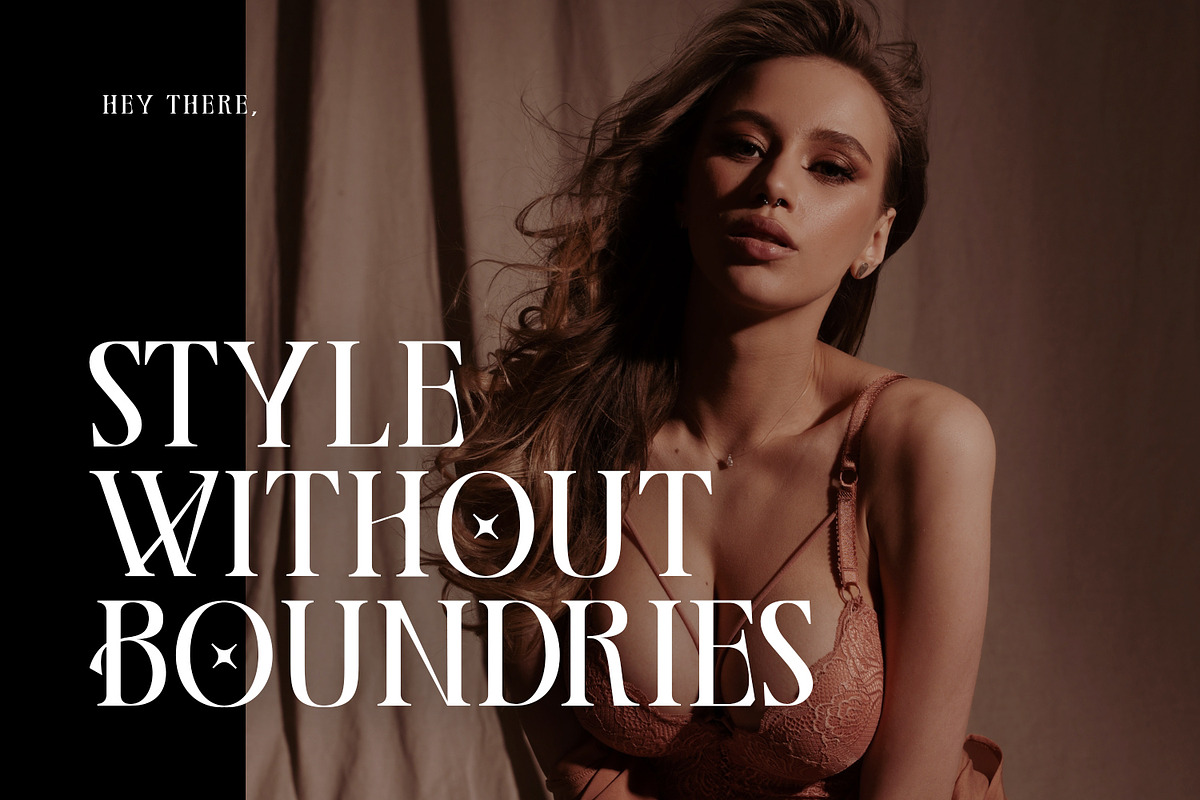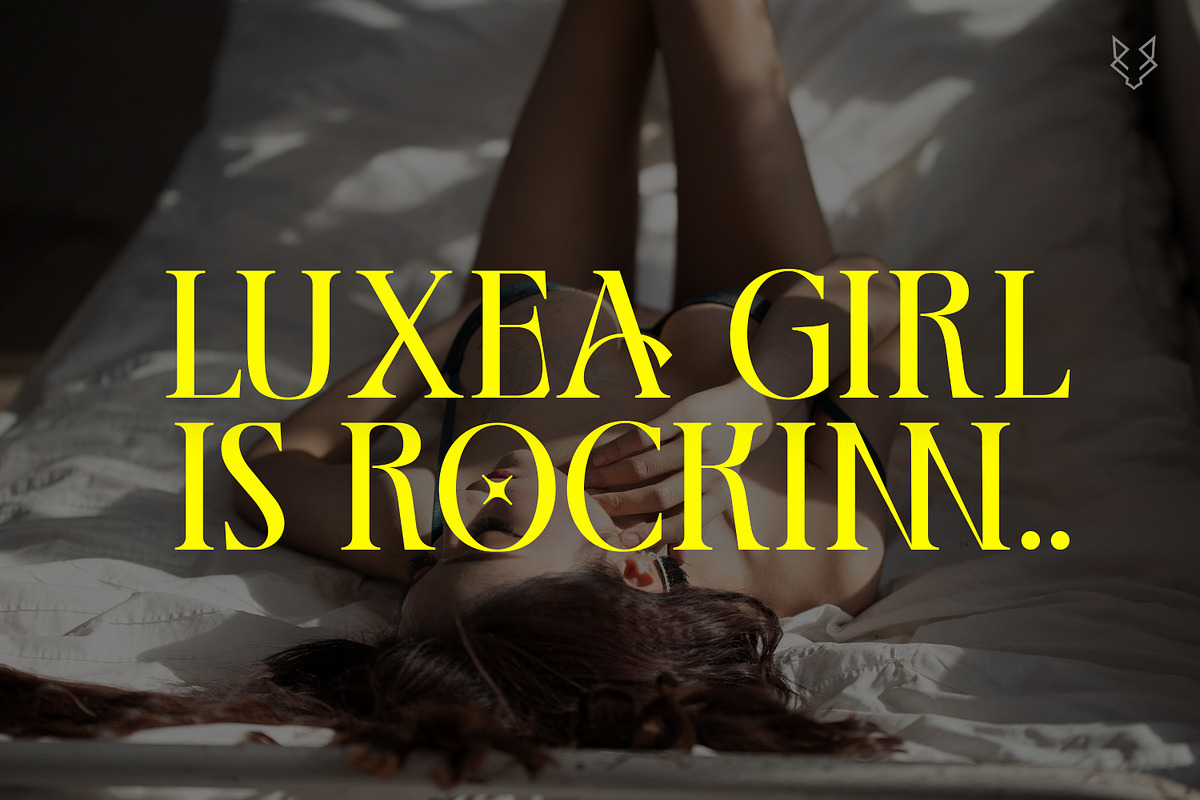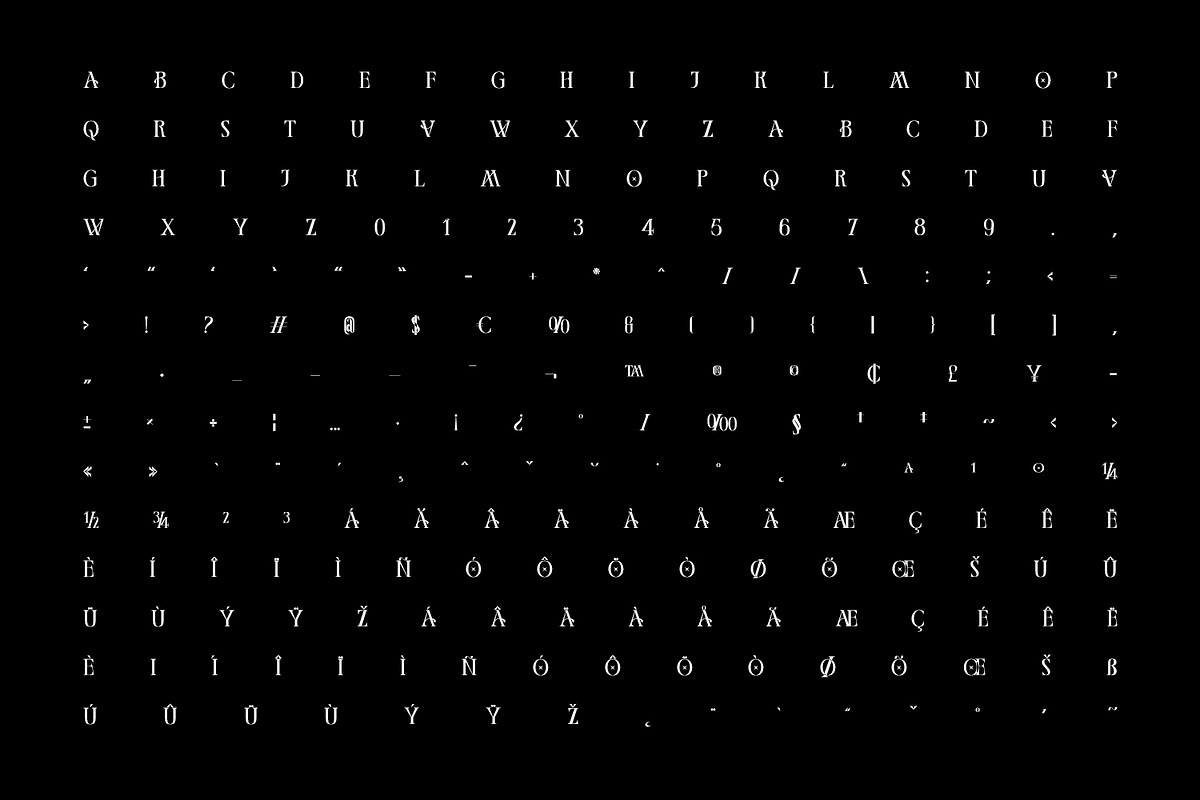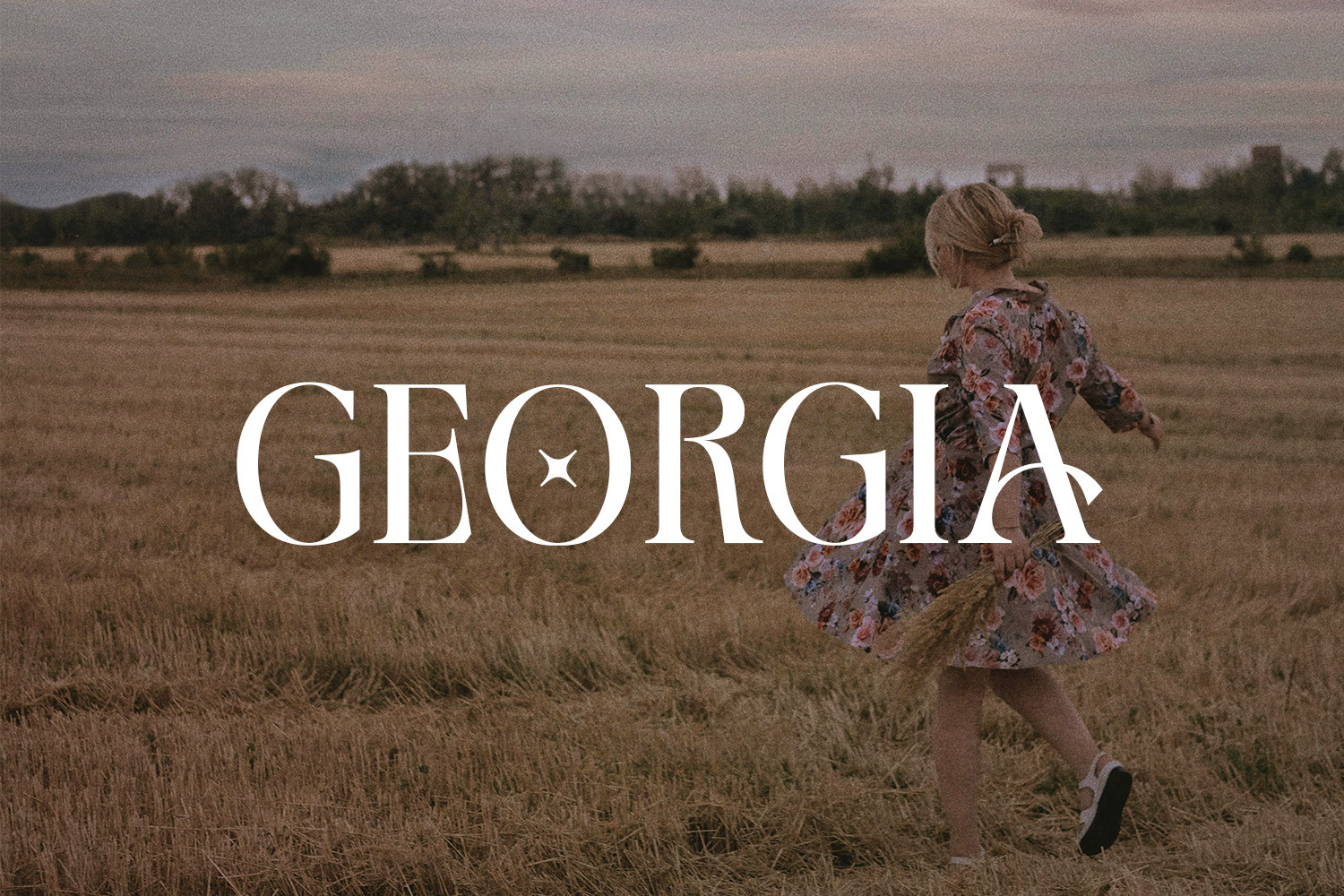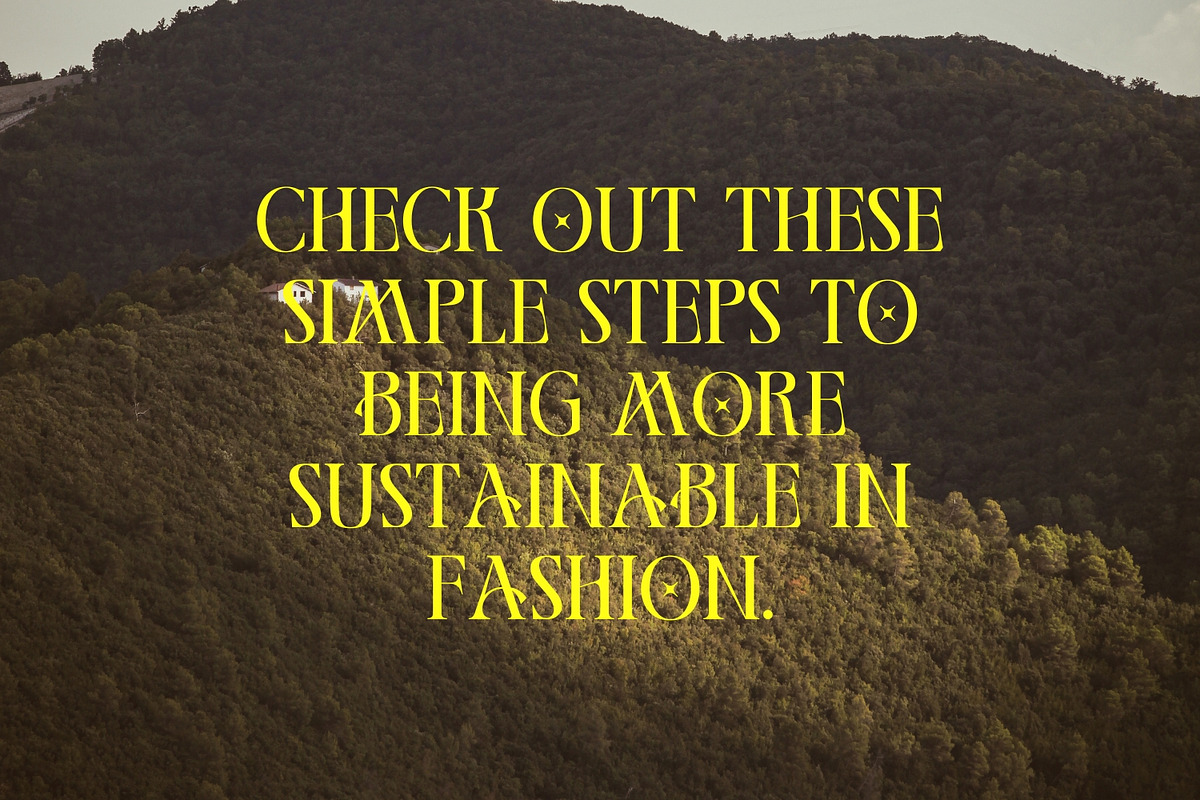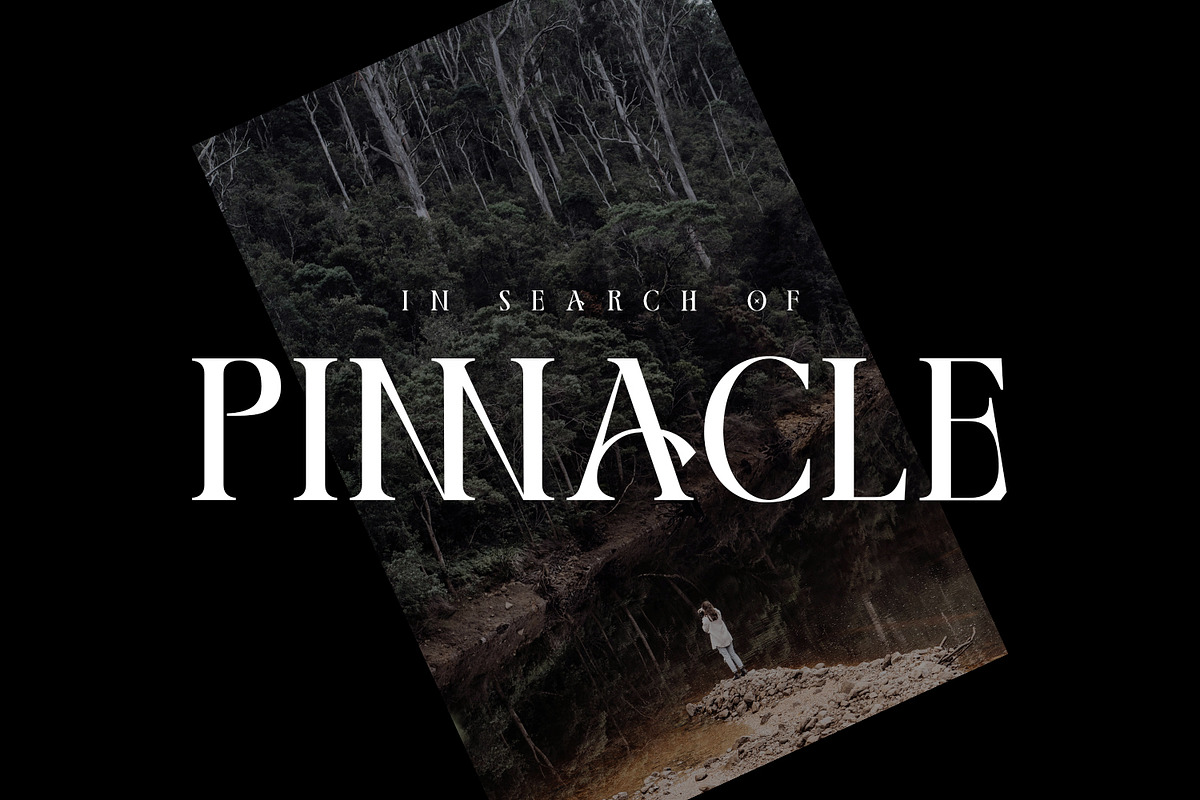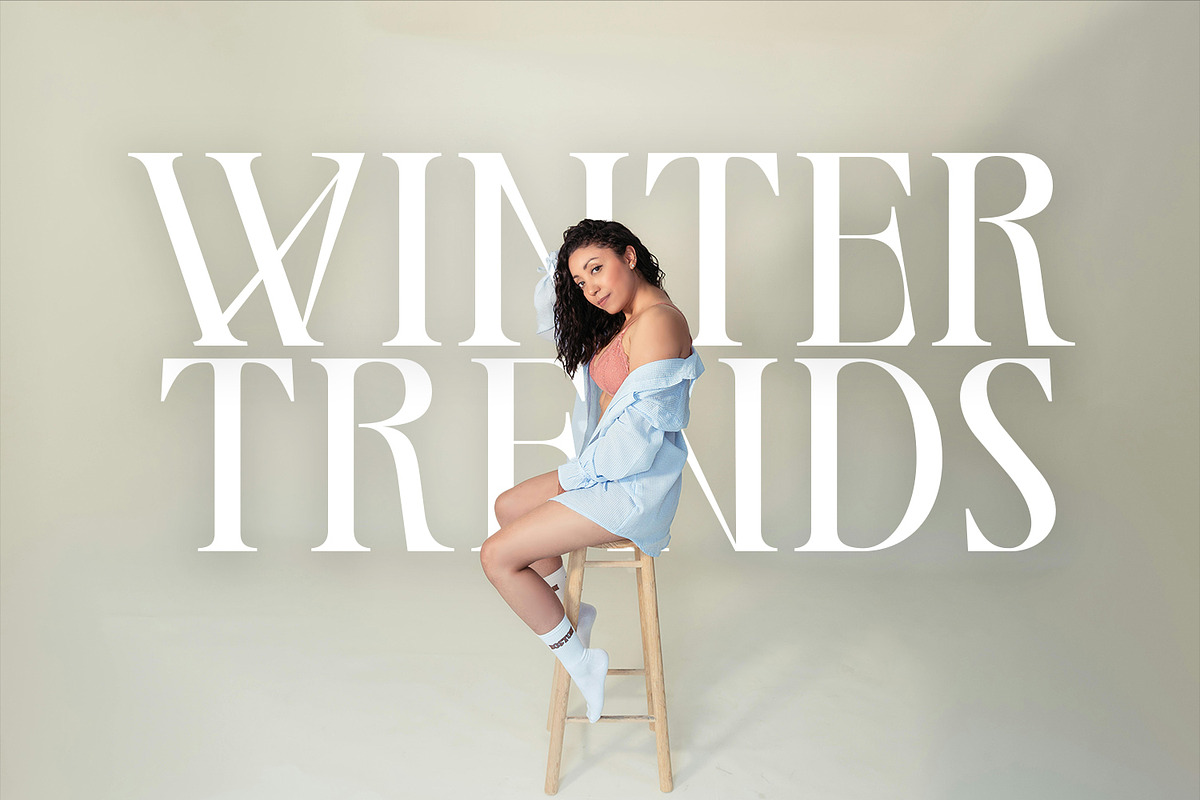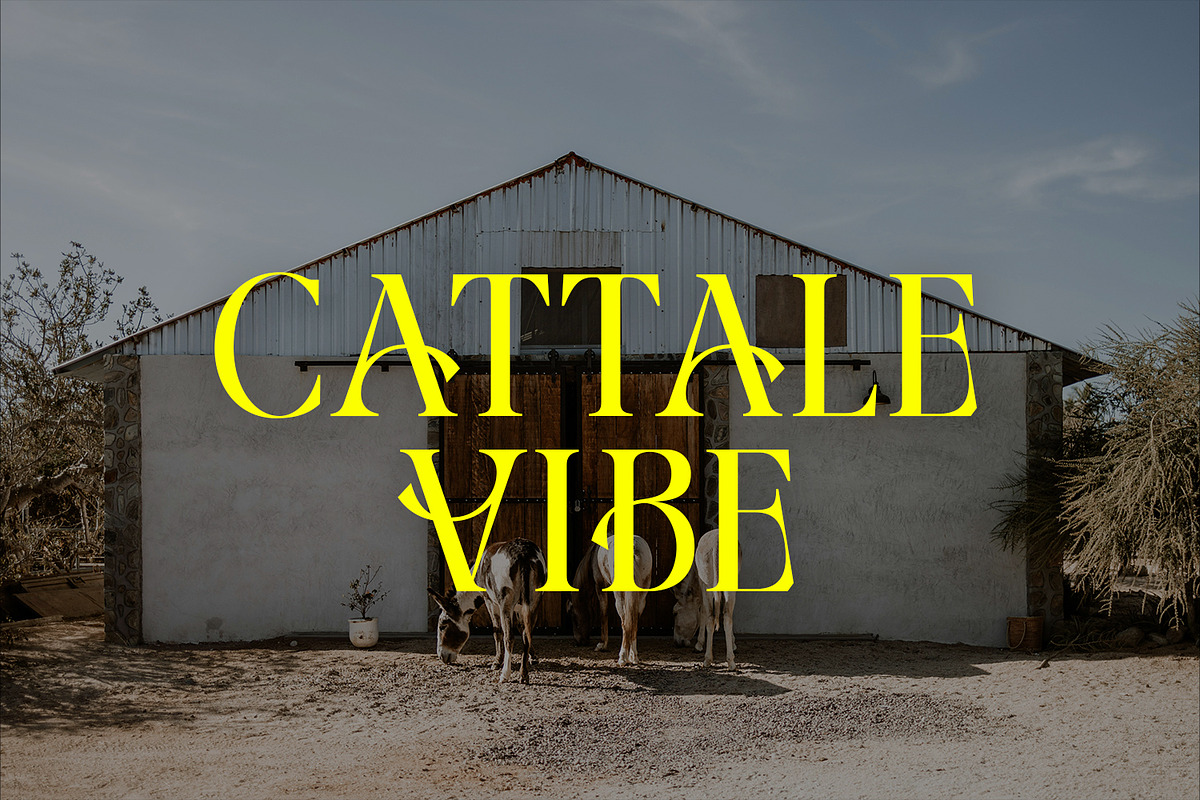
Georgia Decorative Typeface
Introducing Georgia Typeface, a meticulously crafted decorative font designed to elevate fashion and jewelry brands. With its modern aesthetic and precise details, Georgia seamlessly blends elegance and functionality, making it perfect for Logos, Titles, Headlines, Posters, and Digital displays. This versatile font enhances brand identity across various mediums, including print and screen, ensuring your message is delivered with sophistication and style.